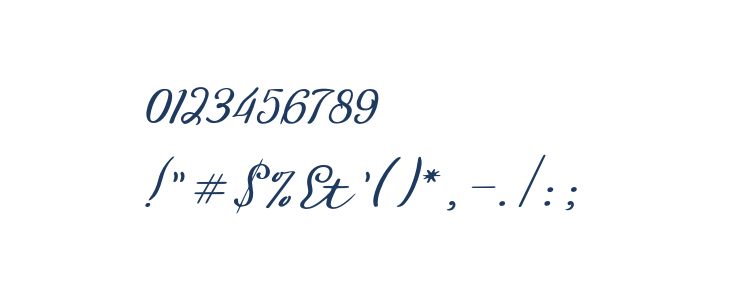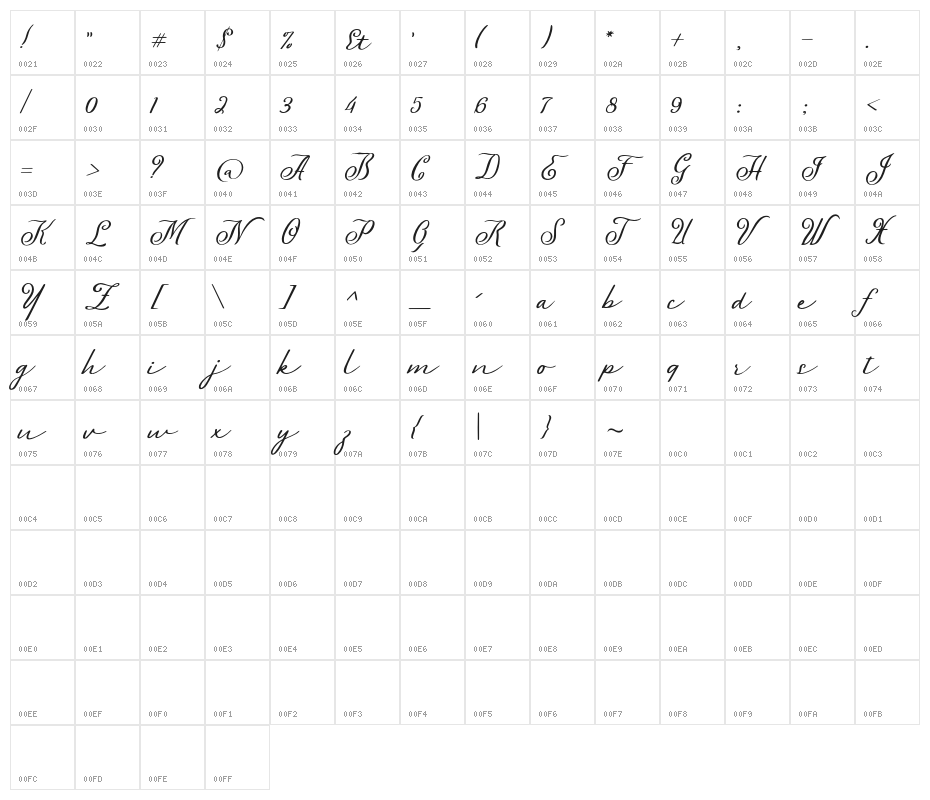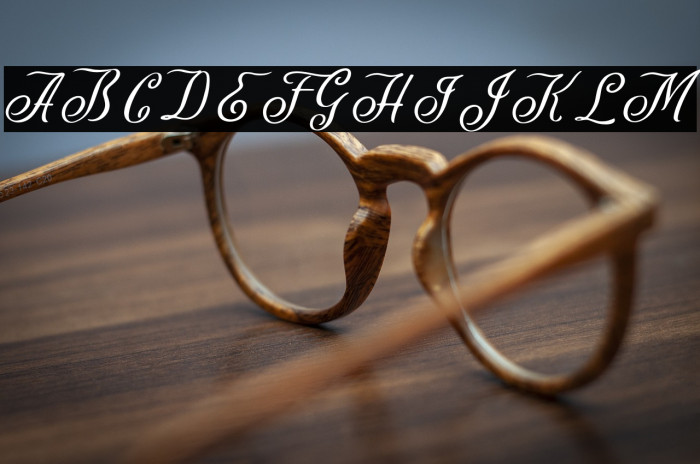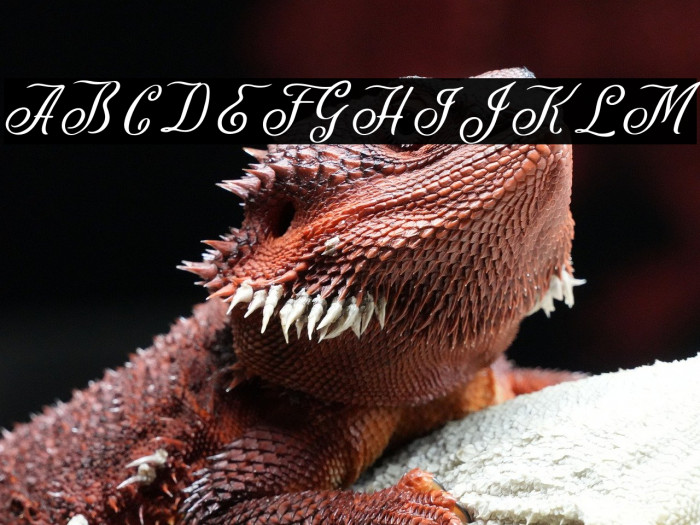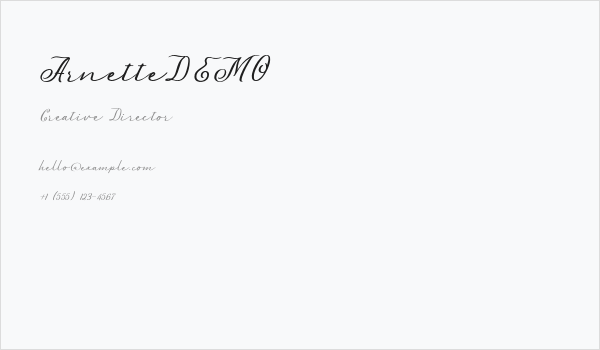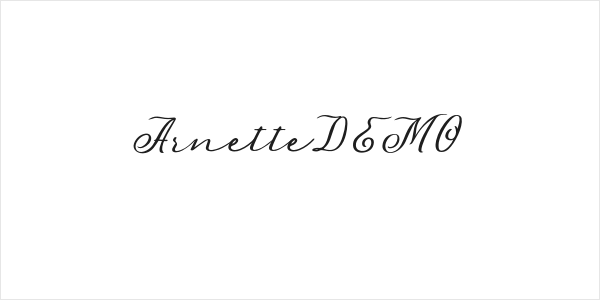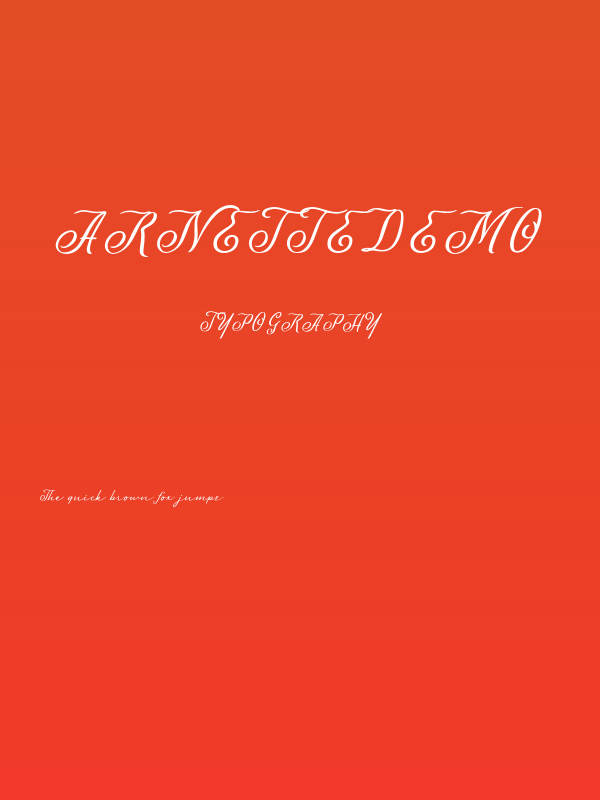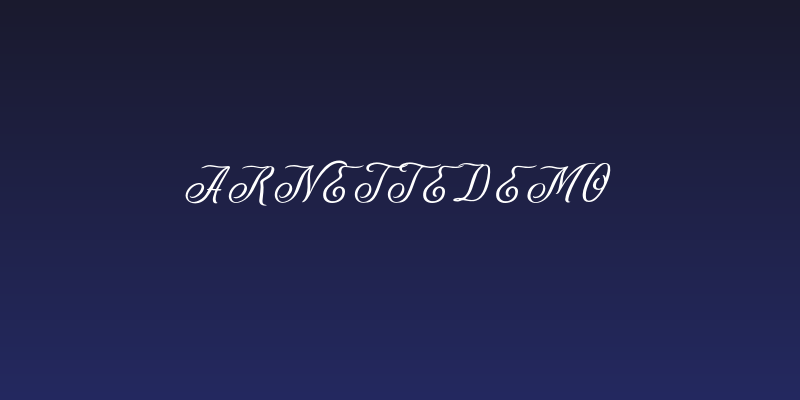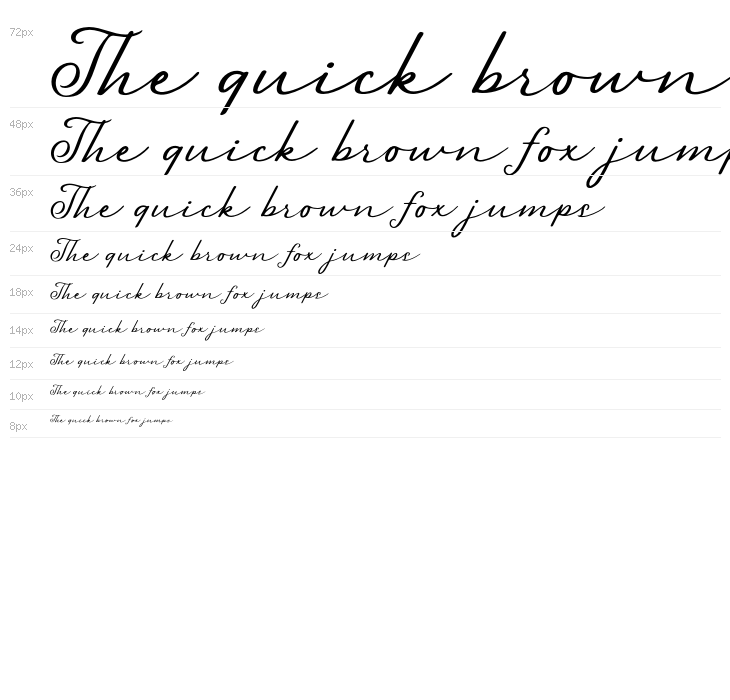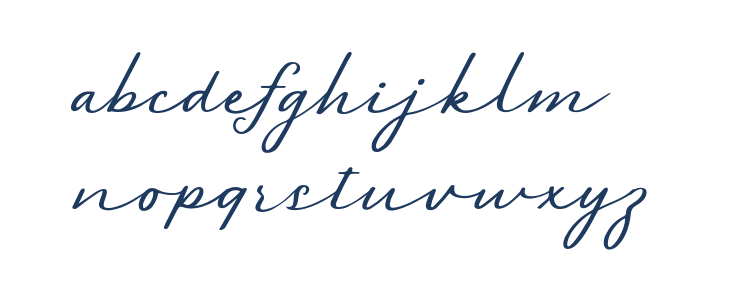
ArnetteDEMO Font
ArnetteDEMO Description
This font features an elegant and flowing script style, characterized by its cursive and calligraphic appearance. The uppercase letters exhibit graceful loops and swirls, while the lowercase letters maintain a consistent and smooth flow. The numerals are distinct yet harmonize well with the overall script style. Special characters are designed with the same attention to detail, ensuring they blend seamlessly with the alphabet. The font's strokes vary in thickness, providing a dynamic and lively feel. Its sophisticated and artistic design makes it suitable for formal and decorative applications.
| Proposed Projects | Ideal for wedding invitations, elegant branding, greeting cards, and decorative signage. |